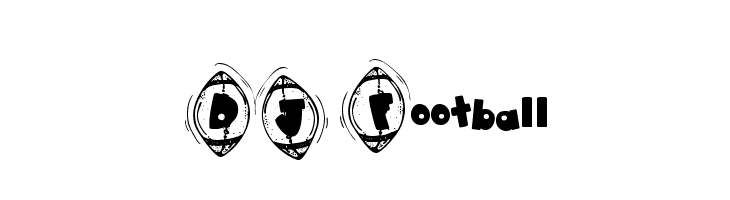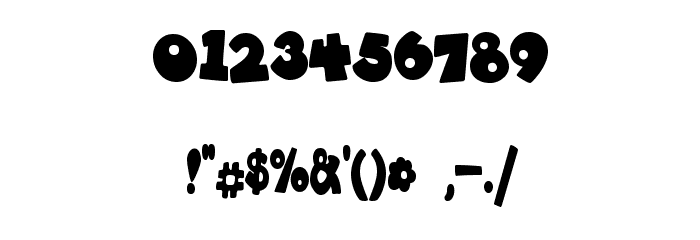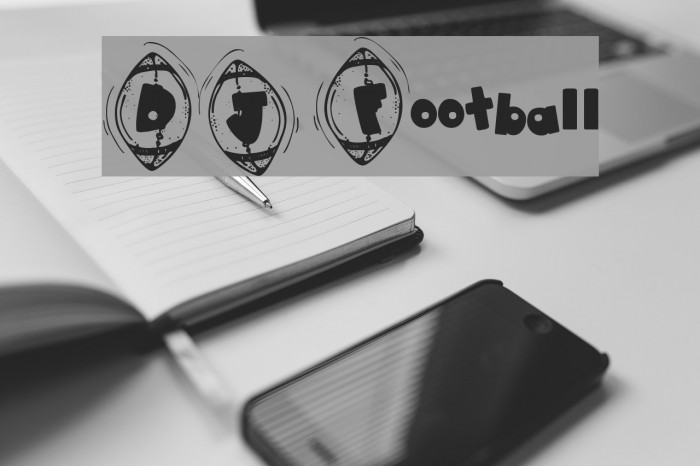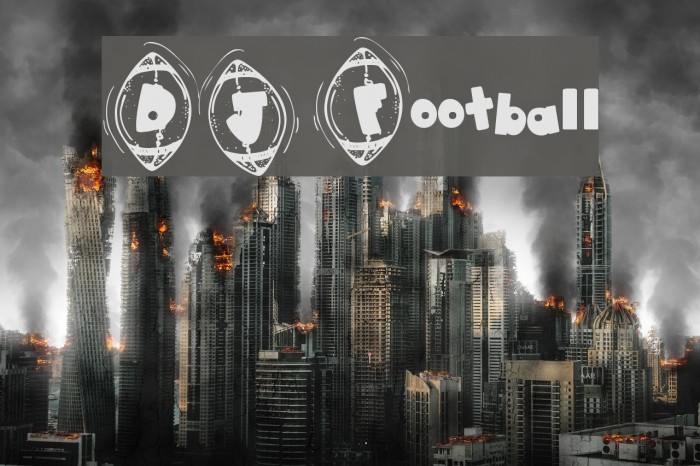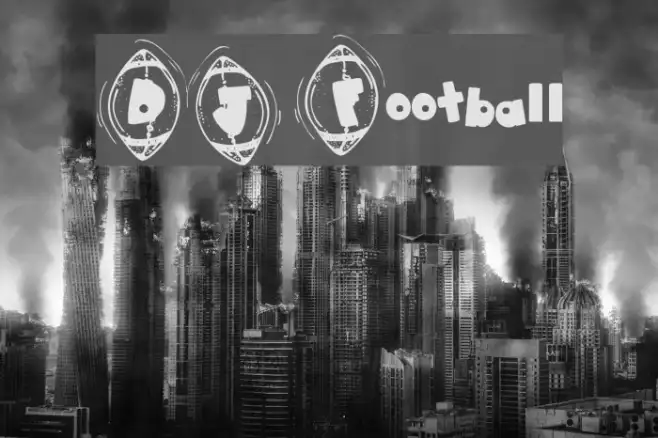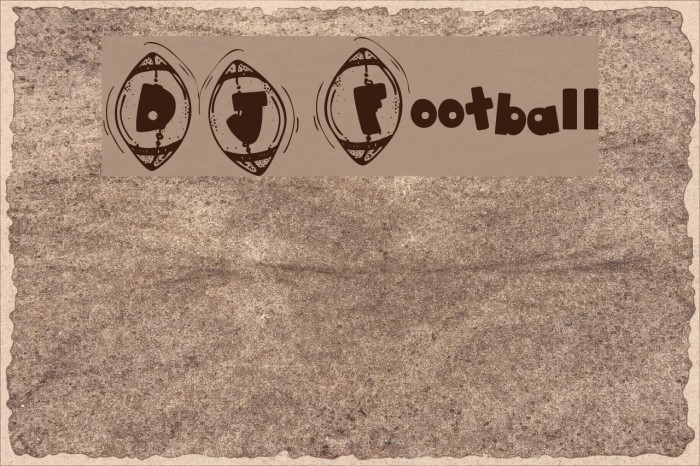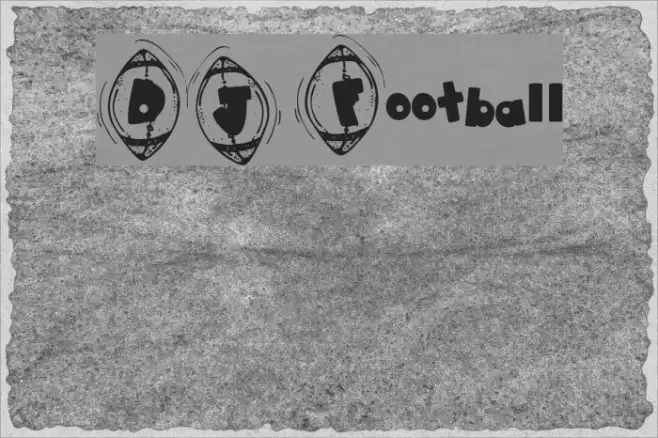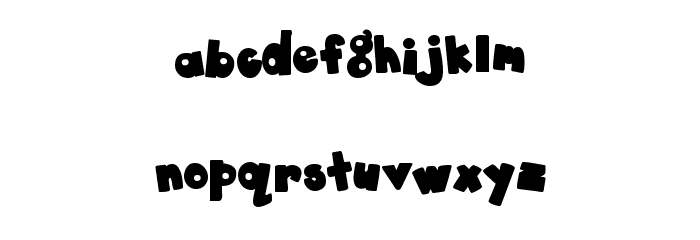
DJ Football Font
This playful and dynamic font features bold, rounded characters with a unique, hand-drawn style. The uppercase letters are enclosed in football-like shapes, adding a sporty and energetic vibe. The lowercase letters maintain a consistent boldness, with slightly irregular edges that enhance the casual, fun appearance. Numbers and special characters follow the same bold and rounded design, ensuring a cohesive look across all text elements. This font's distinctive style makes it ideal for projects that require a lively and informal touch.
A bold, playful font with a sporty, hand-drawn style.
• Proposed Projects: Ideal for sports-themed posters, children's book covers, playful branding, and event invitations.
• Category: Decorative/Display
• Bold: Yes
• Italic: No
• Weight: Bold
• Width: Normal
• Character Spacing: Normal
• Contrast: Low
• Overall Style: Playful, Sporty, Casual
• Use Case: Headlines, Logos, Posters